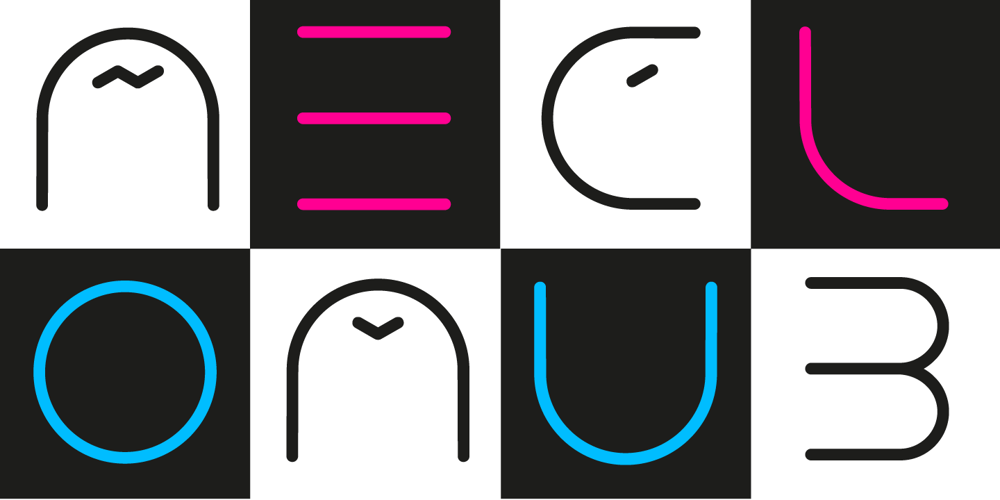
NEON CLUB MUSIC Font Family was designed by Manuel Viergutz and published by TypoGraphicDesign. NEON CLUB MUSIC contains 5 styles and family package options. The typeface Neon Club Music is designed in 2011 for an Logo-Design of a electronic music label from South Germany.324 glyphs incl. decorative extras like arrows, dingbats, emojis, symbols, geometric shapes, decorative ligatures (type the word #SMILE for ☺ or #LOVE for ♥ as OpenType-Feature dlig) and stylistic alternates (as OpenType-Feature salt. For use in logos, magazines, posters, advertisement plus as webfont for decorative headlines. The font works best for display size.Have fun with this font & use the DEMO-FONT (with reduced glyph-set) FOR FREE!CONCEPT/CHARACTERISTICS The geometric and rounded character of the typeface is a very unique futuristic sci-fi atmosphere. The sans-serif monoline letter-forms looks very modern, clean, fresh and fancy. APPLICATION AREA The fancy, geometric & round party, music & movie font “NEON CLUB MUSIC” would look good at display size for party flyer & movie poster, music covers or headlines in magazines or websites…